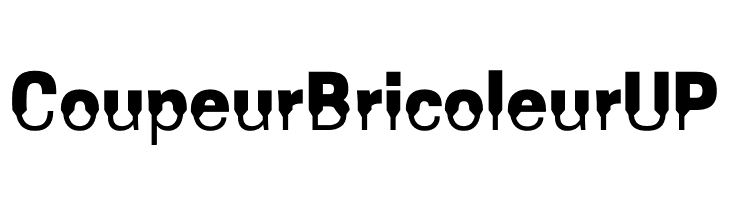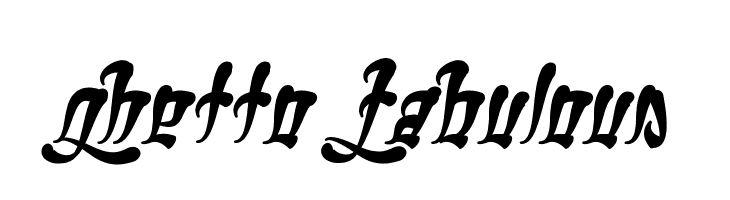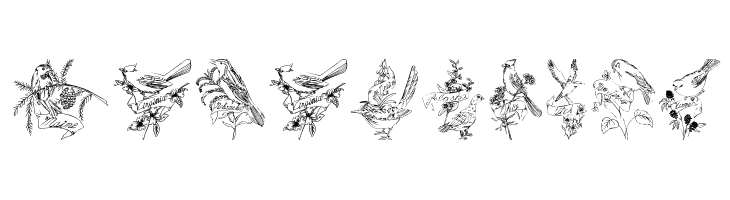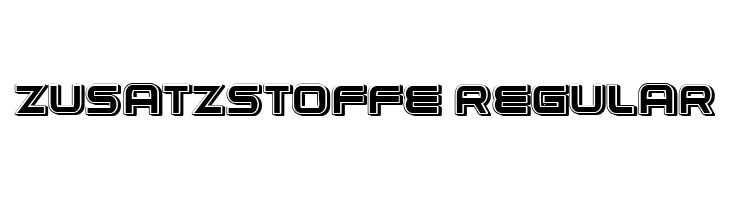
Intricate, hand-drawn bird illustrations for each character.
A geometric, futuristic font with sharp angles and a minimalist style.
A bold, modern font with geometric cut-out elements.
A bold, angular font with a futuristic, geometric style.
A decorative and abstract font with swirling, dynamic patterns and high contrast.
A bold, tattoo-inspired font with intricate, dynamic strokes and sharp angles.
An elegant, flowing script font with cursive, connected letterforms.
A bold, geometric font with sharp angles and a futuristic feel.
A bold, pixelated font with a retro, geometric design.
A bold, italicized font with a dynamic and energetic style.